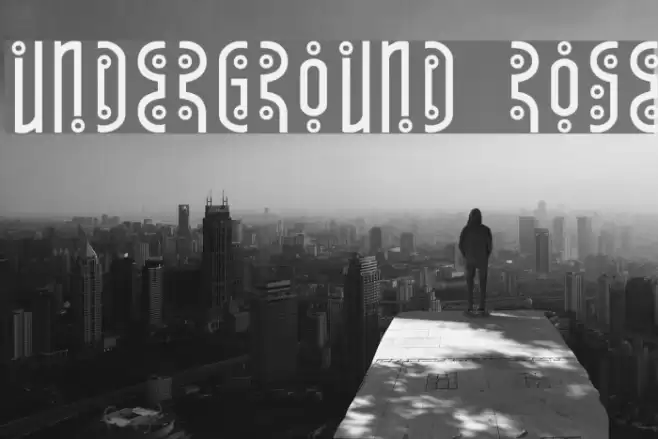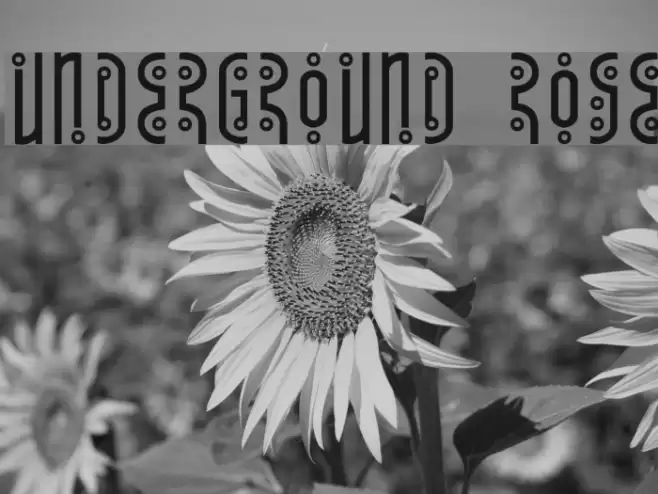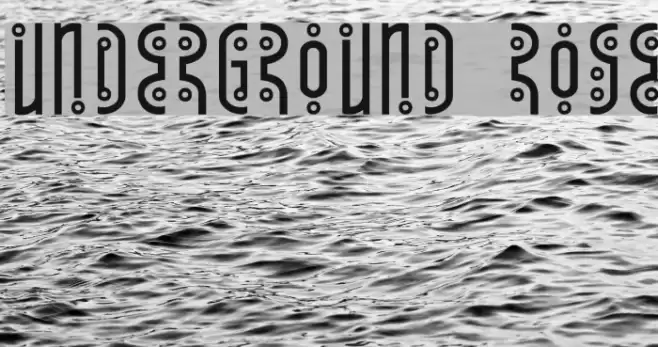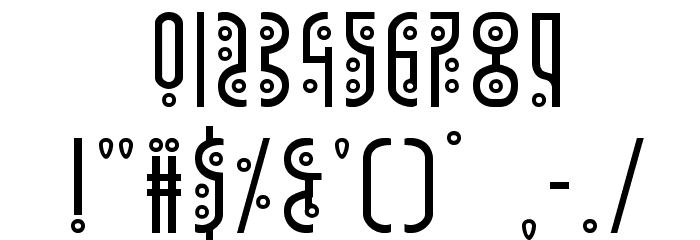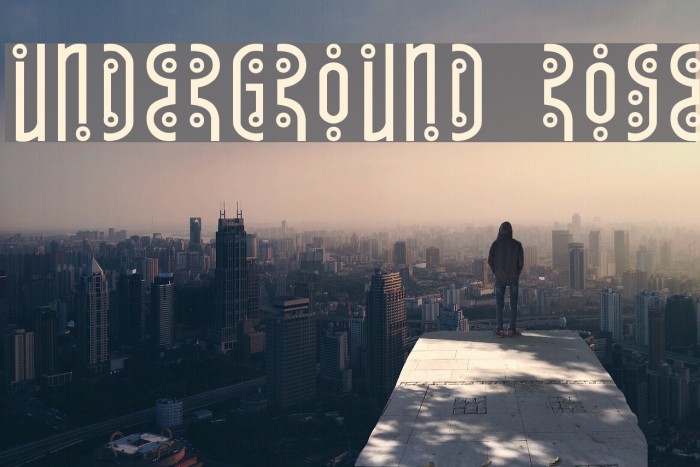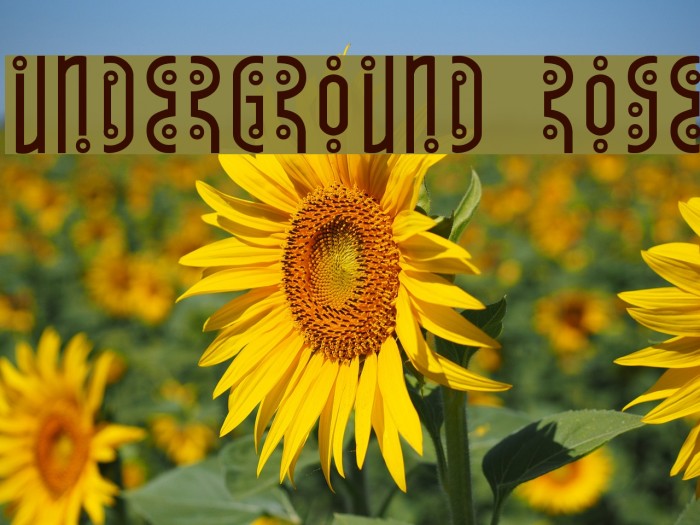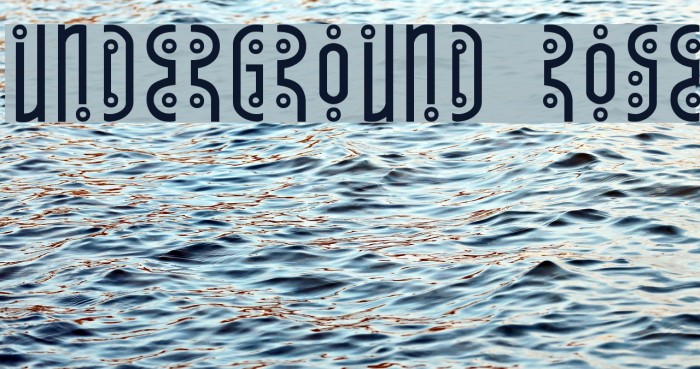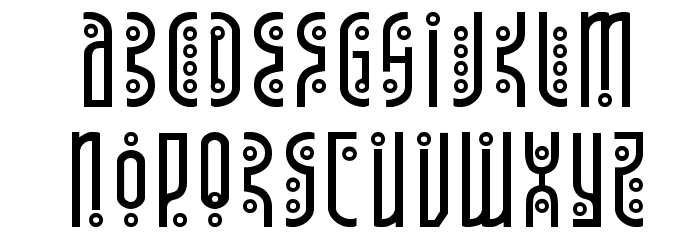
Underground Rose Font
Underground Rose Description
This font features a unique and decorative style, characterized by its bold, geometric shapes and intricate dot patterns. Each letter is crafted with a combination of straight lines and curves, giving it a futuristic and artistic appearance. The uppercase and lowercase letters maintain a consistent design, with the lowercase being slightly smaller but equally detailed. Numbers and special characters follow the same design principles, ensuring a cohesive look across all elements. The font's distinctiveness makes it stand out, ideal for creative projects that require a bold statement.
A bold, decorative font with geometric shapes and intricate dot patterns from Uncategorized fonts.
- Proposed Projects: Ideal for branding, posters, album covers, and any creative project that requires a bold and artistic touch.
- Overall Style: Modern, Decorative